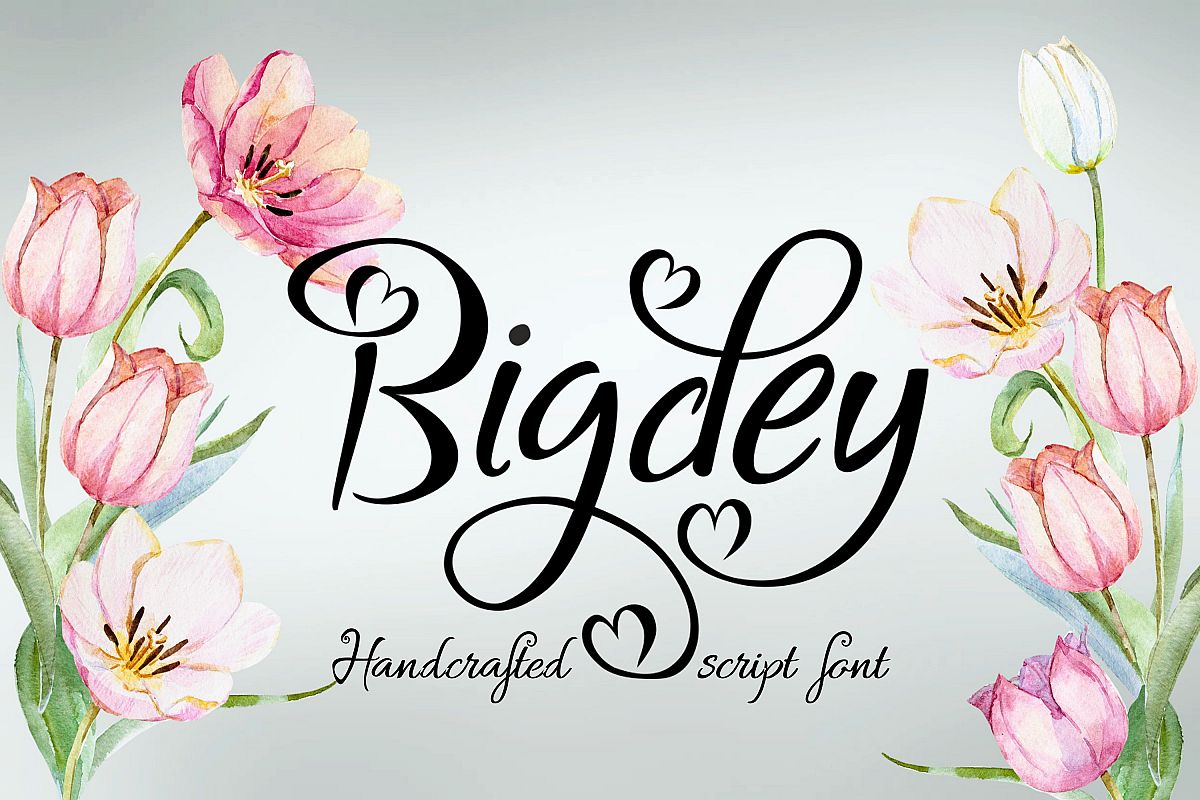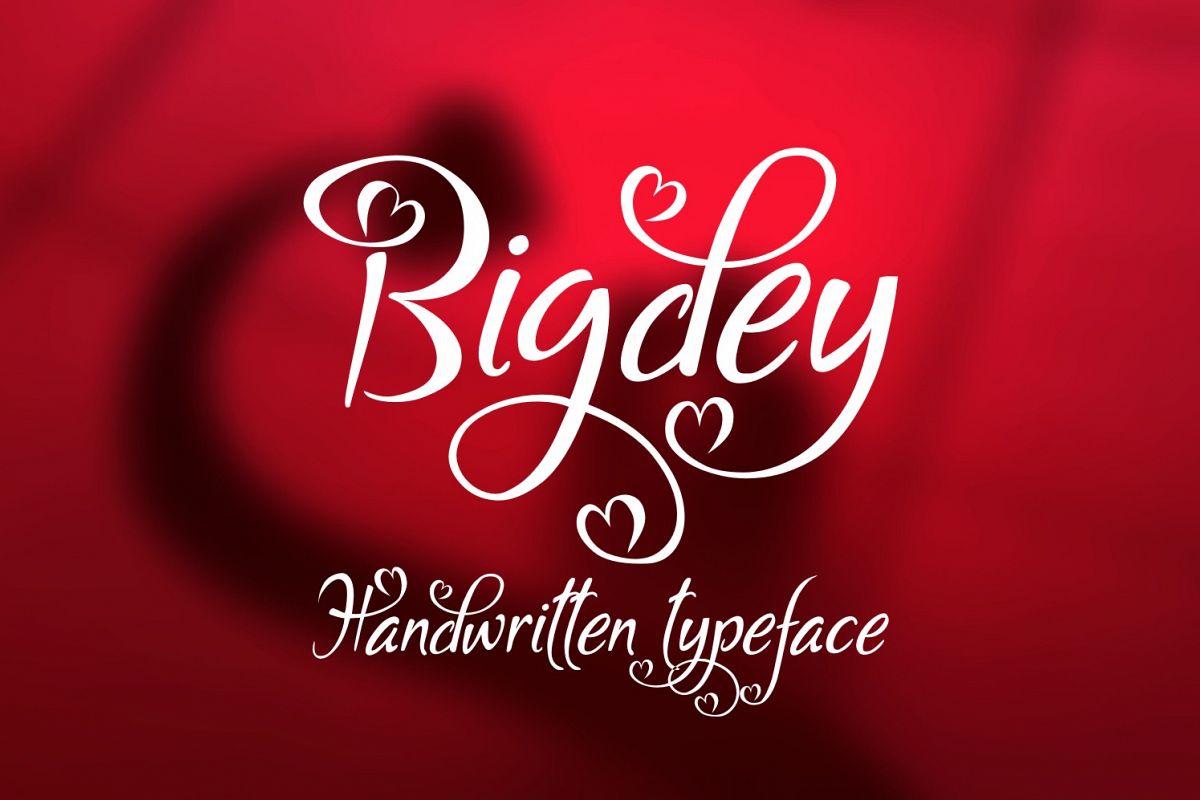
Bigdey Font
Introducing Bigdey handwritten typeface.
Great for scrapbooking, cards or other stationeries and also perfect for many craft area such as stencils, engraving, laser cutting and more!
Beautiful font, the little hearts are just gorgeous! Thank you